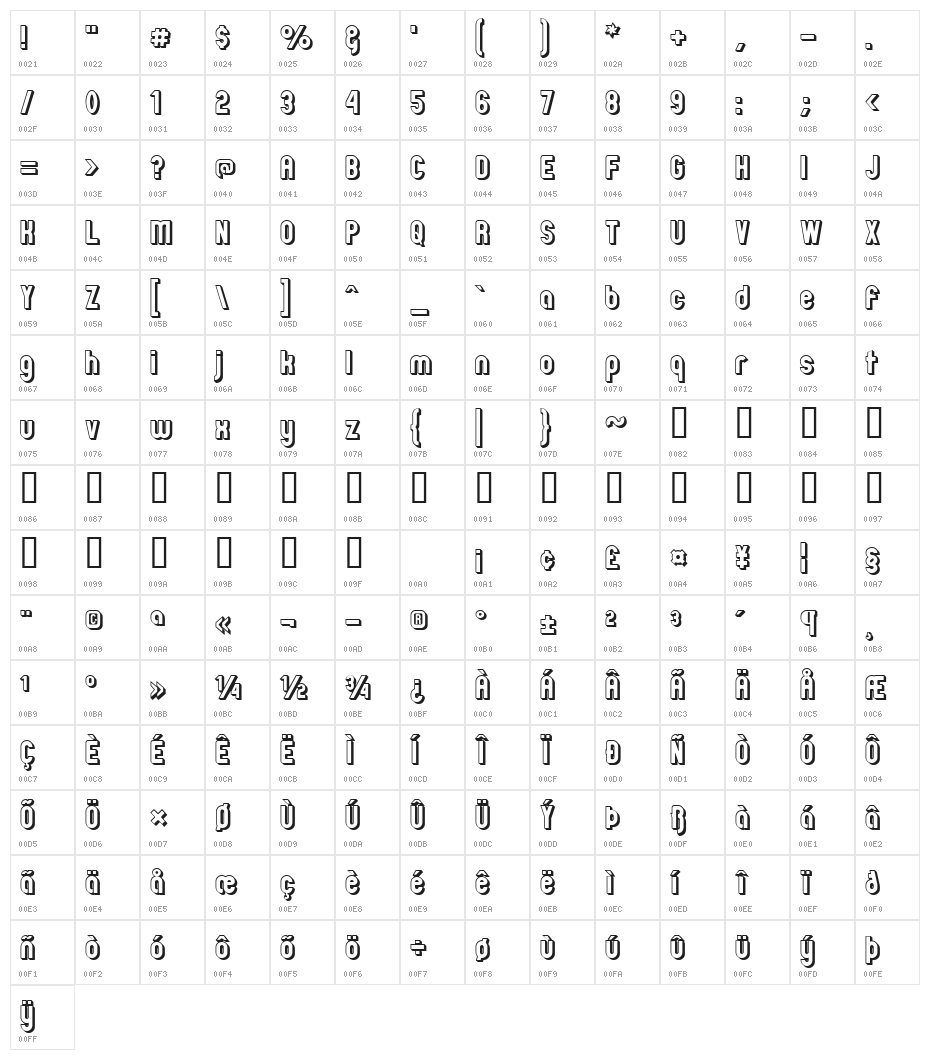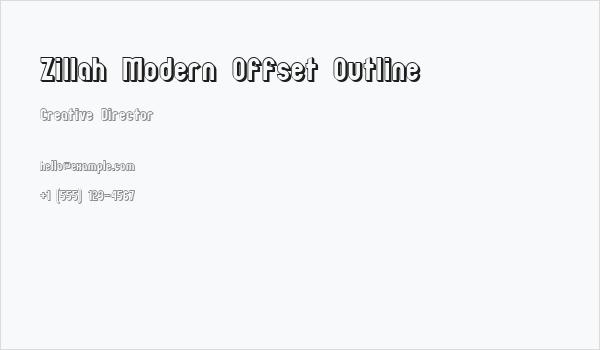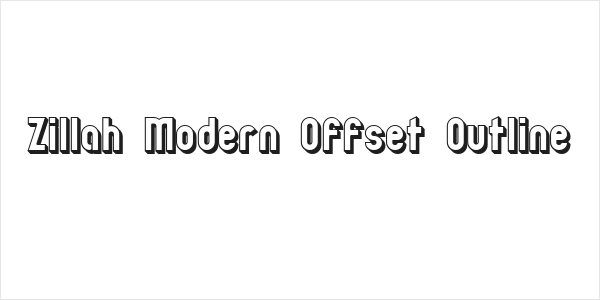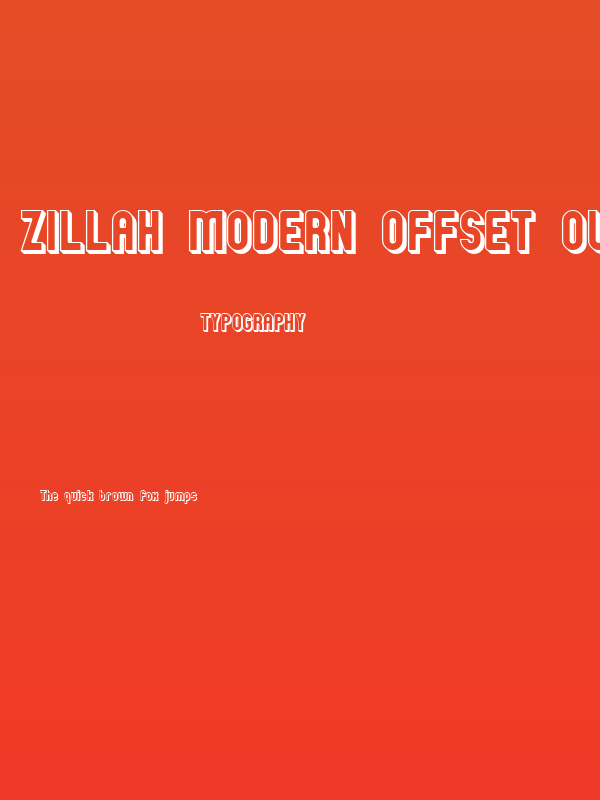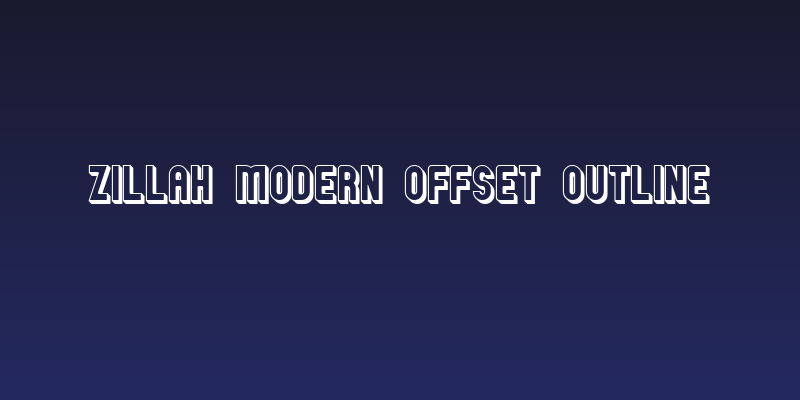
Zillah Modern Offset Outline Font
Zillah Modern Offset Outline Description
This font features a bold, modern design with an offset outline that creates a striking 3D effect. The characters are uppercase and lowercase, with numerals and a variety of special characters. The style is clean and geometric, with a uniform thickness that adds to its contemporary appeal. The offset outline provides a shadow-like appearance, enhancing the visual impact and making it suitable for eye-catching designs. The font's structure is consistent, with balanced proportions and a strong presence, making it ideal for projects that require a bold statement.